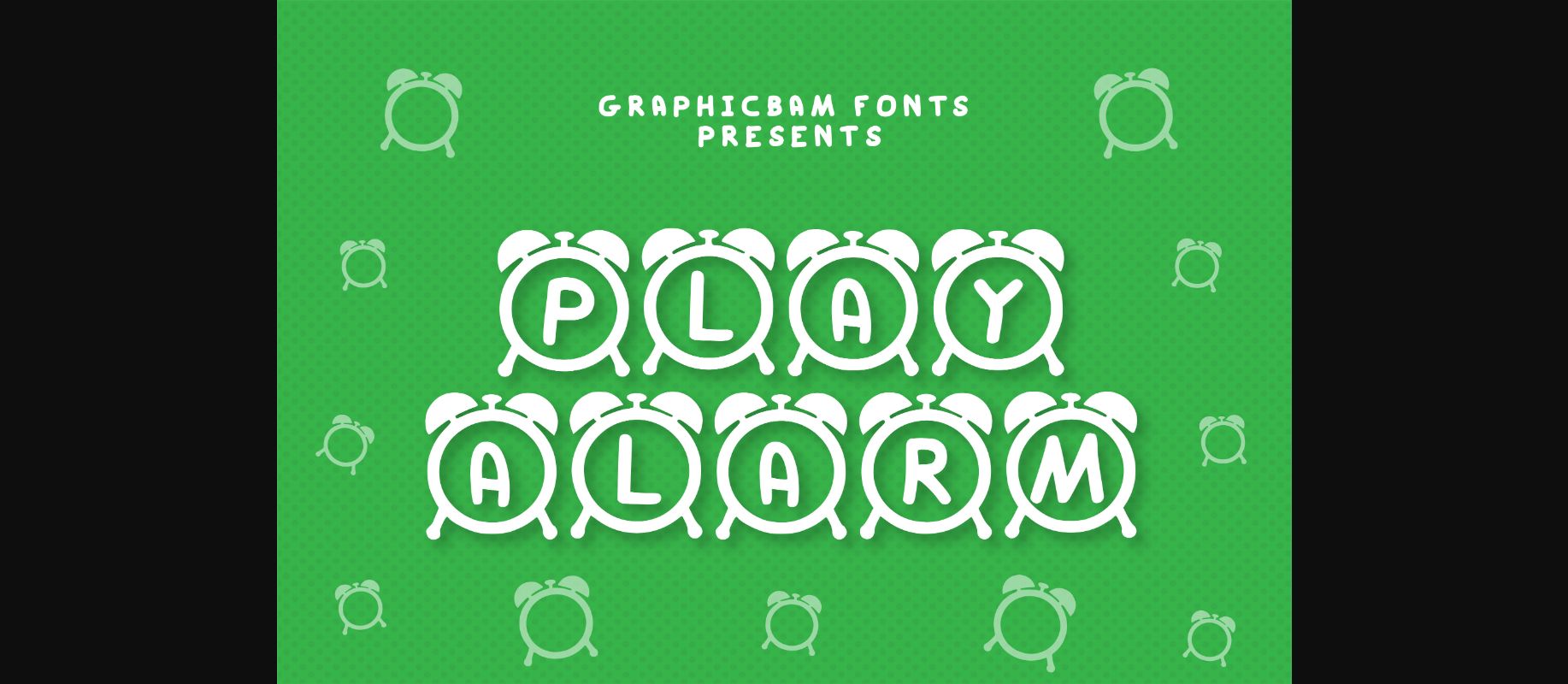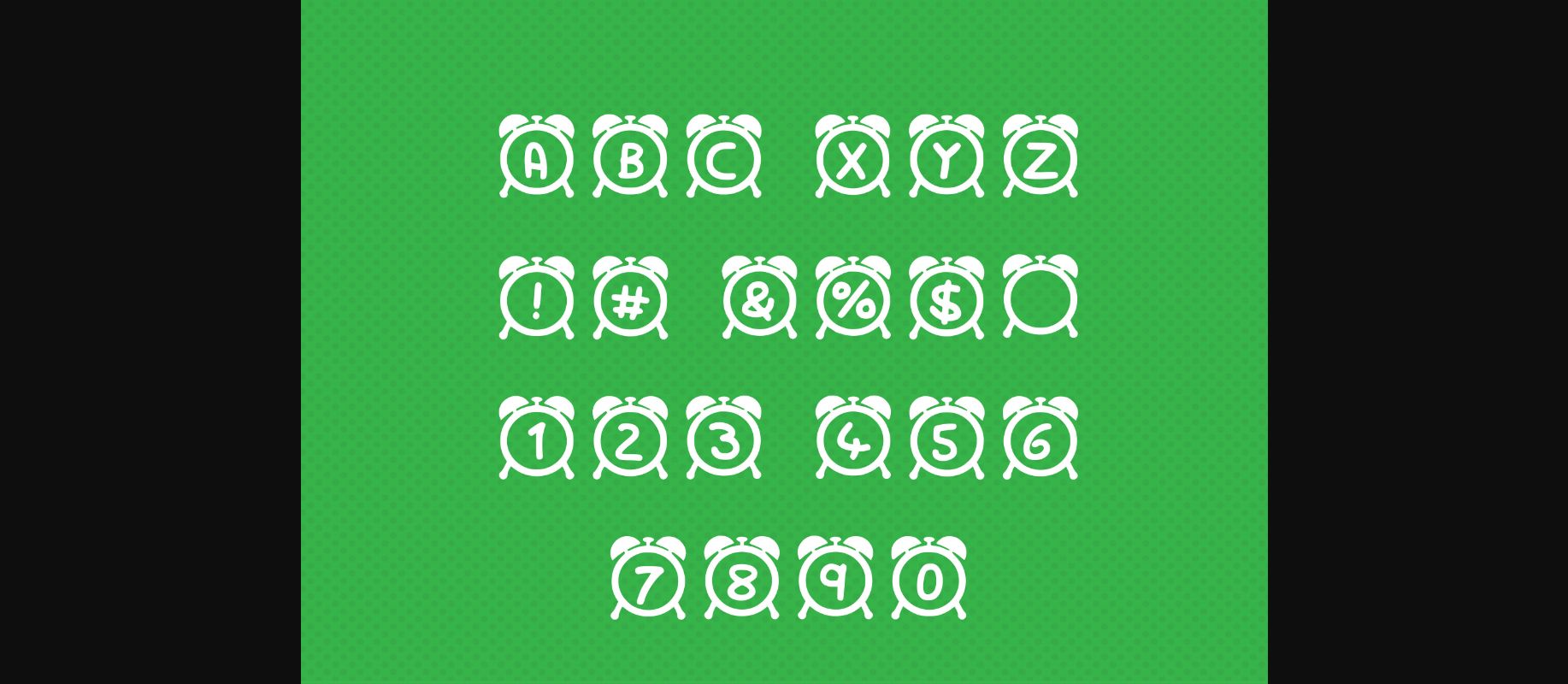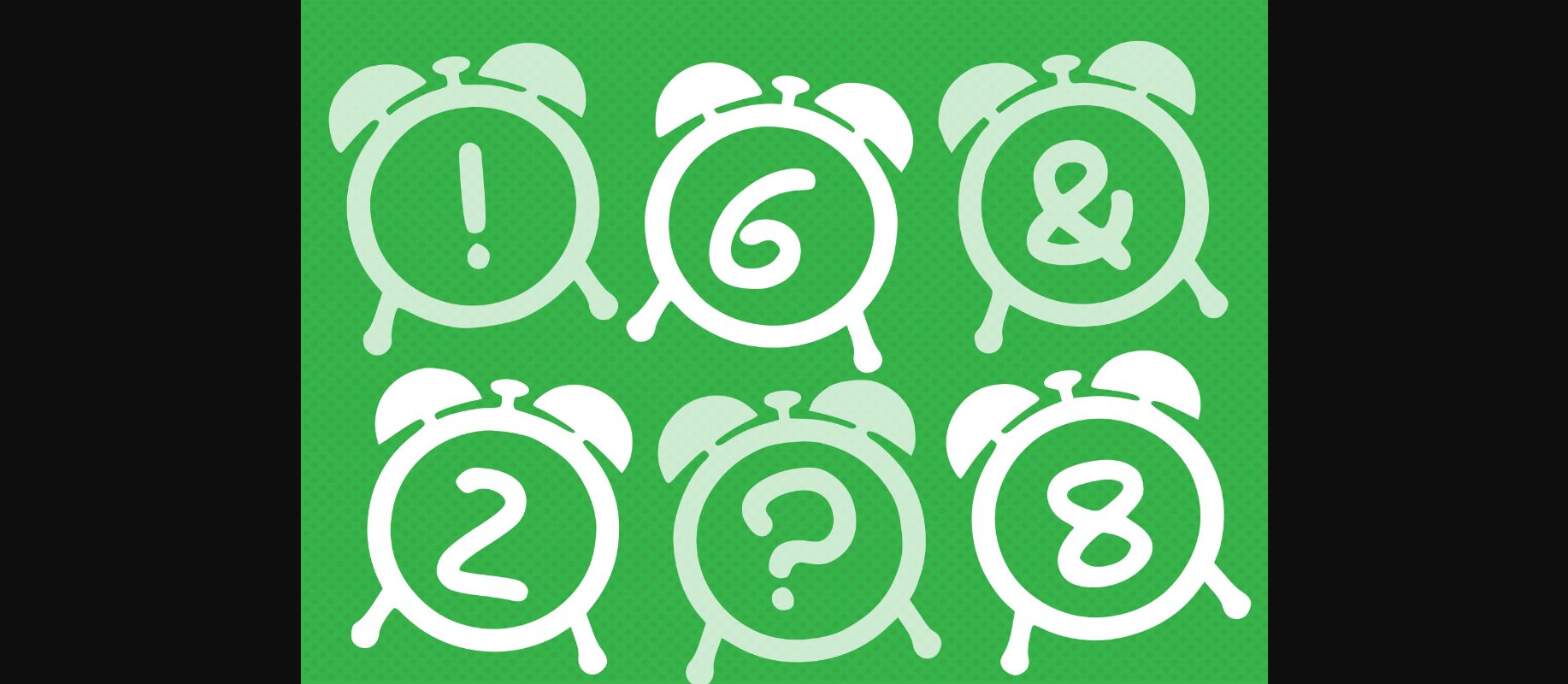
About Play Alarm Font
Play Alarm is a cool looking and interesting decorative font, featuring a clock on each character. No matter the topic, this font will be an incredible asset to your fonts’ library, as it has the potential to elevate any creation.